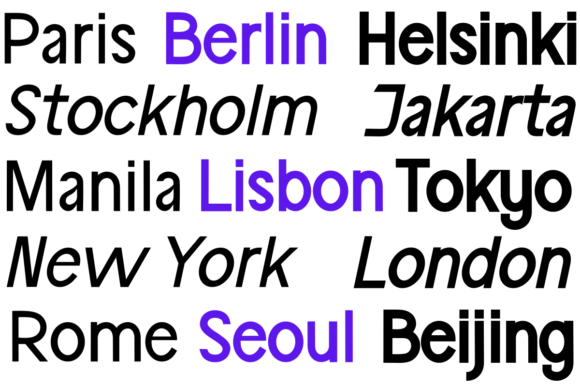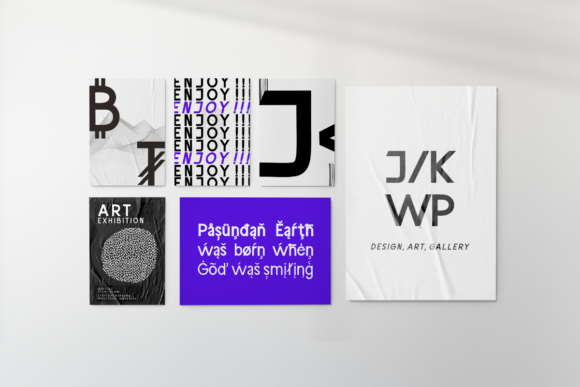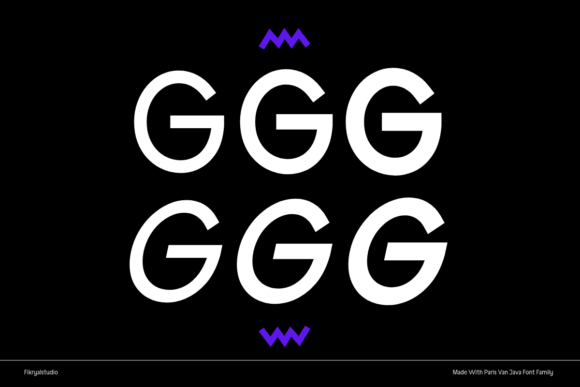
Introducing Paris Van Java sans serif font family.
This font family is perfect for various design projects, including logos, branding, titles, social media posts, advertisements, product packaging, product designs, labels, photography, watermarks, special events, magazines, web designs, etc .
Paris Van Java Family Font offers exceptional quality and versatility, making it a valuable addition to your design toolkit. Whether you’re creating for personal projects or commercial use, Paris Van Java Family Font delivers professional results.